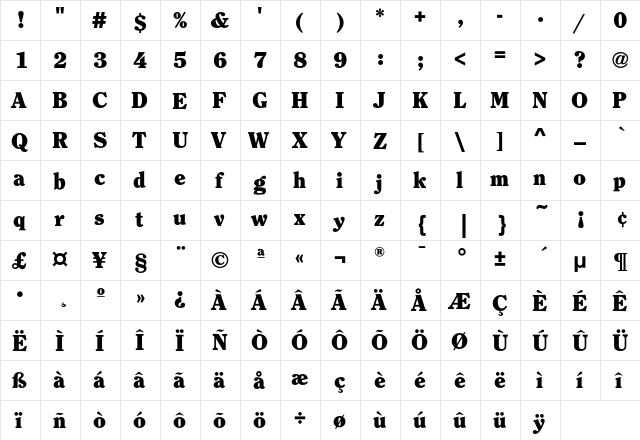
ClearfaceEF-Black Regular Font Preview
ClearfaceEF-Black Regular
ClearfaceEF-Black Regular Font Details
Design Context for ClearfaceEF-Black Typeface
ClearfaceEF-Black takes a measured approach to typography — its balanced proportions and neutral character make it a reliable workhorse for both digital and print work.